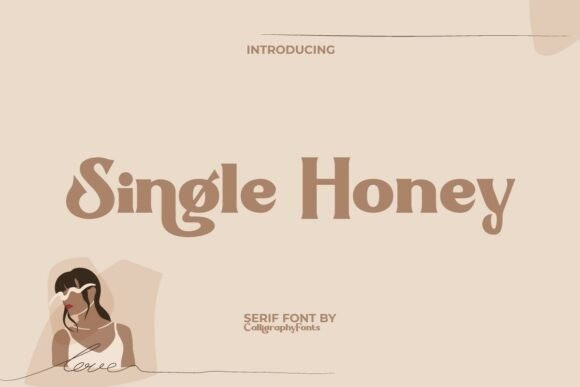
Single Honey Font
Single Honey Font is a strong yet stylish serif display font with a vintage feel but reborn with modern looks, making it a versatile and elegant high-contrast typeface. This serif type is prominent and evokes a sense of nostalgia but still fresh. Ideal for advertisements, banners, branding logo, flyer, greeting cards, heading, invitations, label stickers, quote post, tags, websites, and more.
Crafted with attention to detail, this font combines elegance and friendliness, making it suitable for a wide range of uses. From wedding invitations and logos to posters, quotes, and social media graphics, Single Honey Display Font transforms ordinary text into something truly eye-catching. Its versatility allows it to pair beautifully with clean sans serif fonts for balance, or to stand alone as the star of your design.